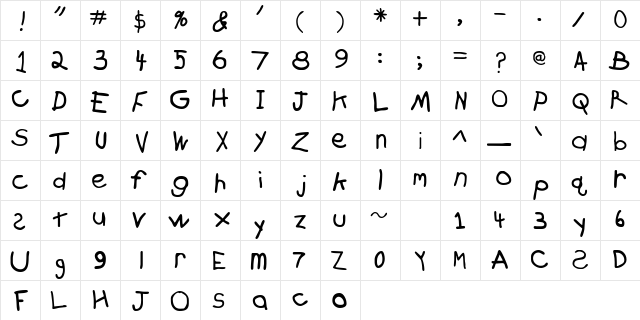
KidzOnlyTooSSK Regular
Design Context for KidzOnlyTooSSK Typeface
KidzOnlyTooSSK is a composed and adaptable typeface that performs quietly and consistently across a wide range of design contexts.